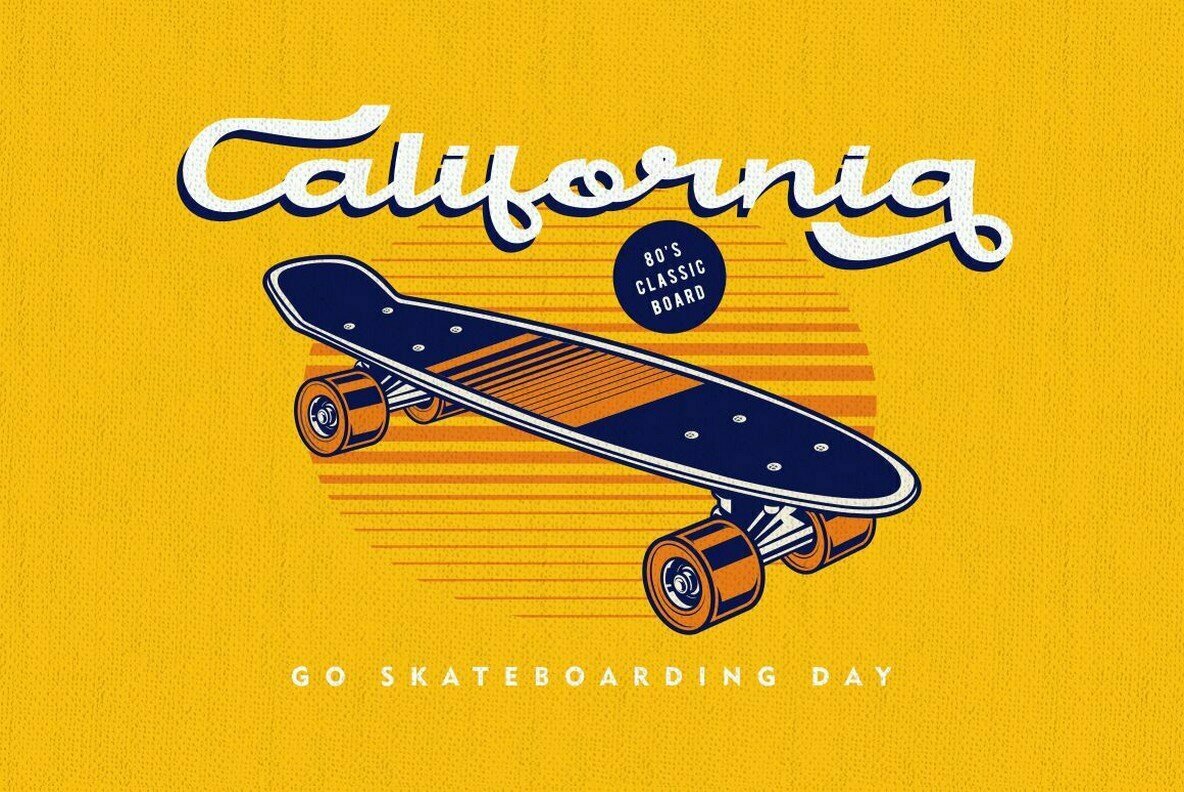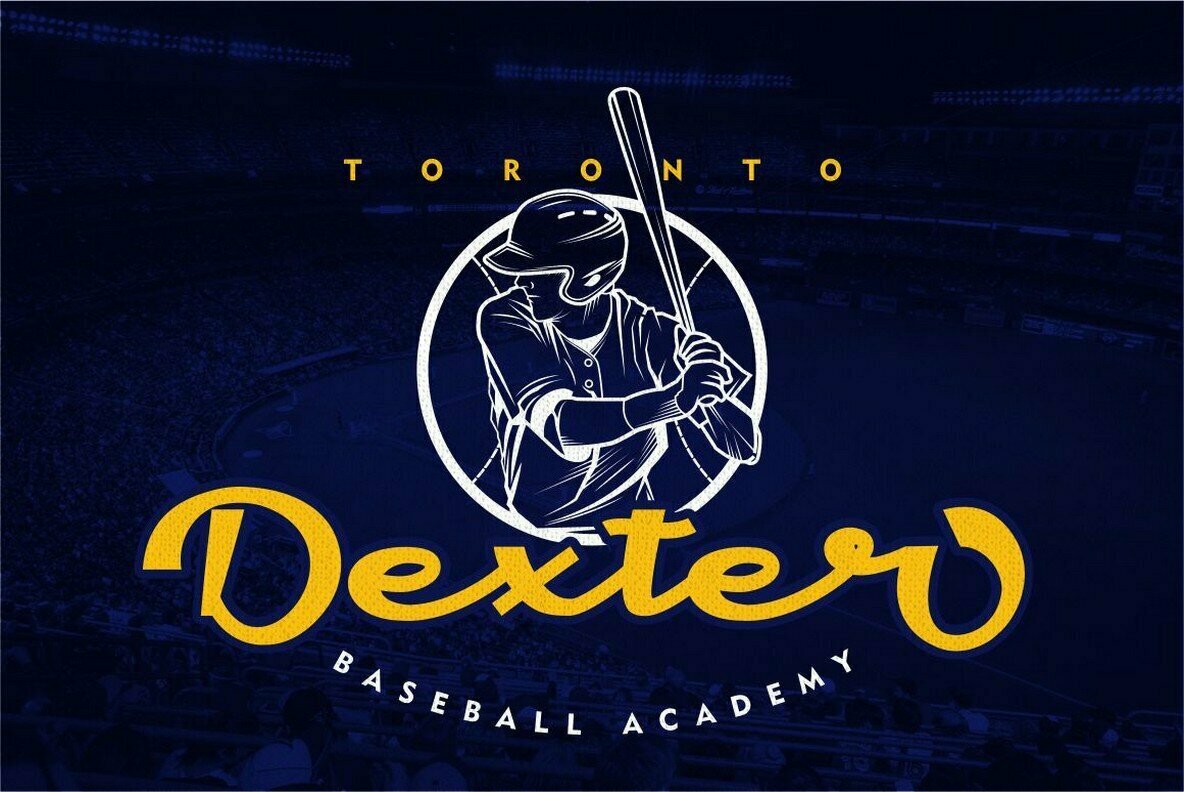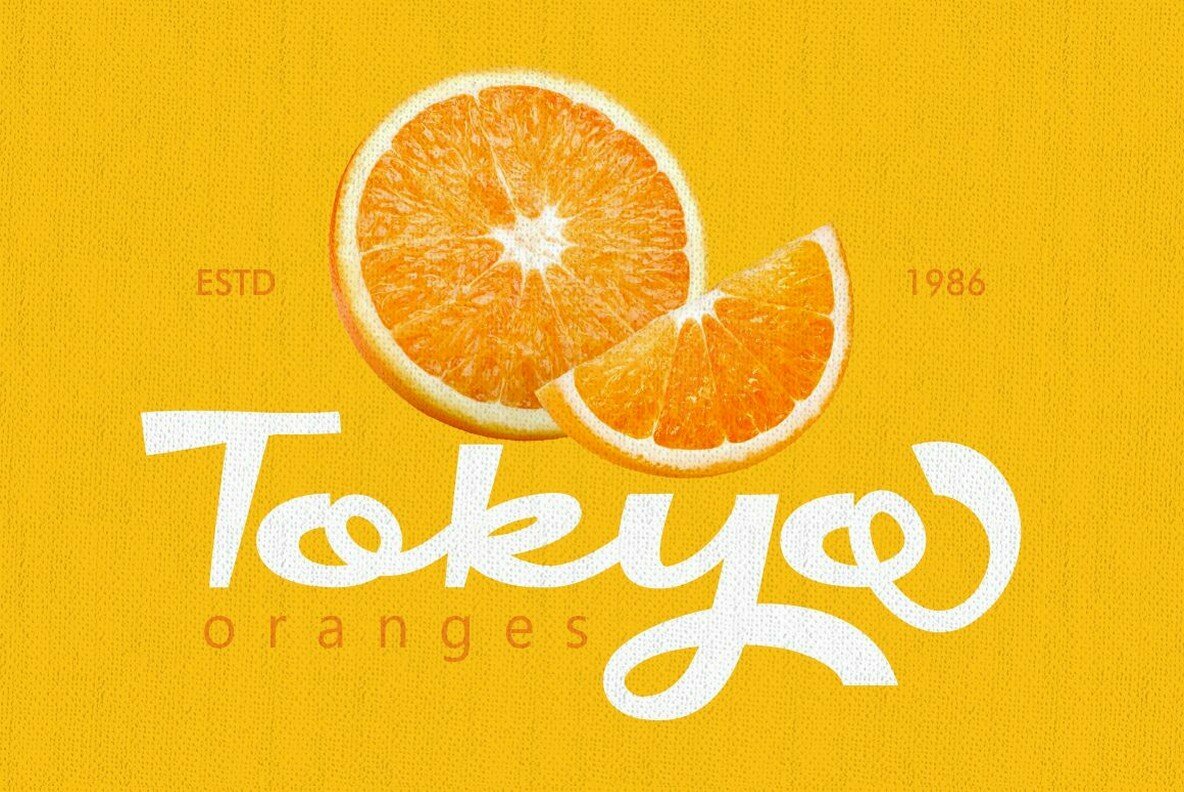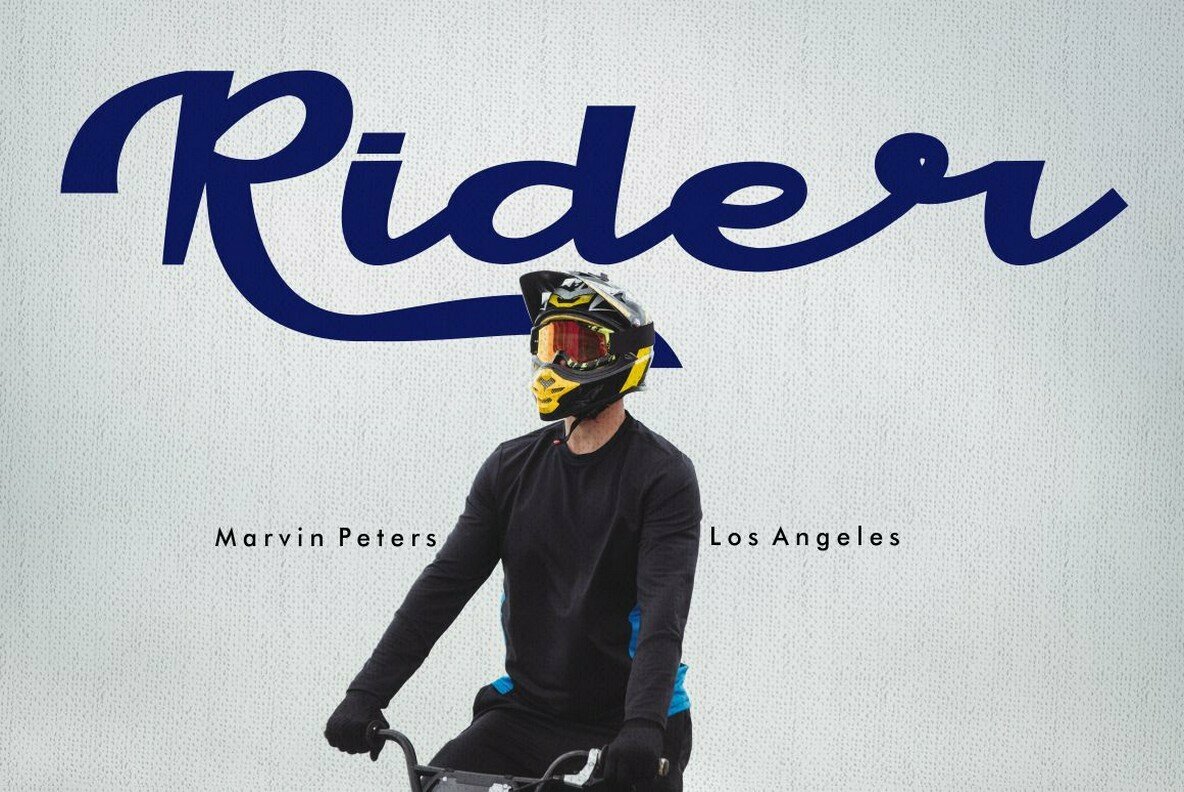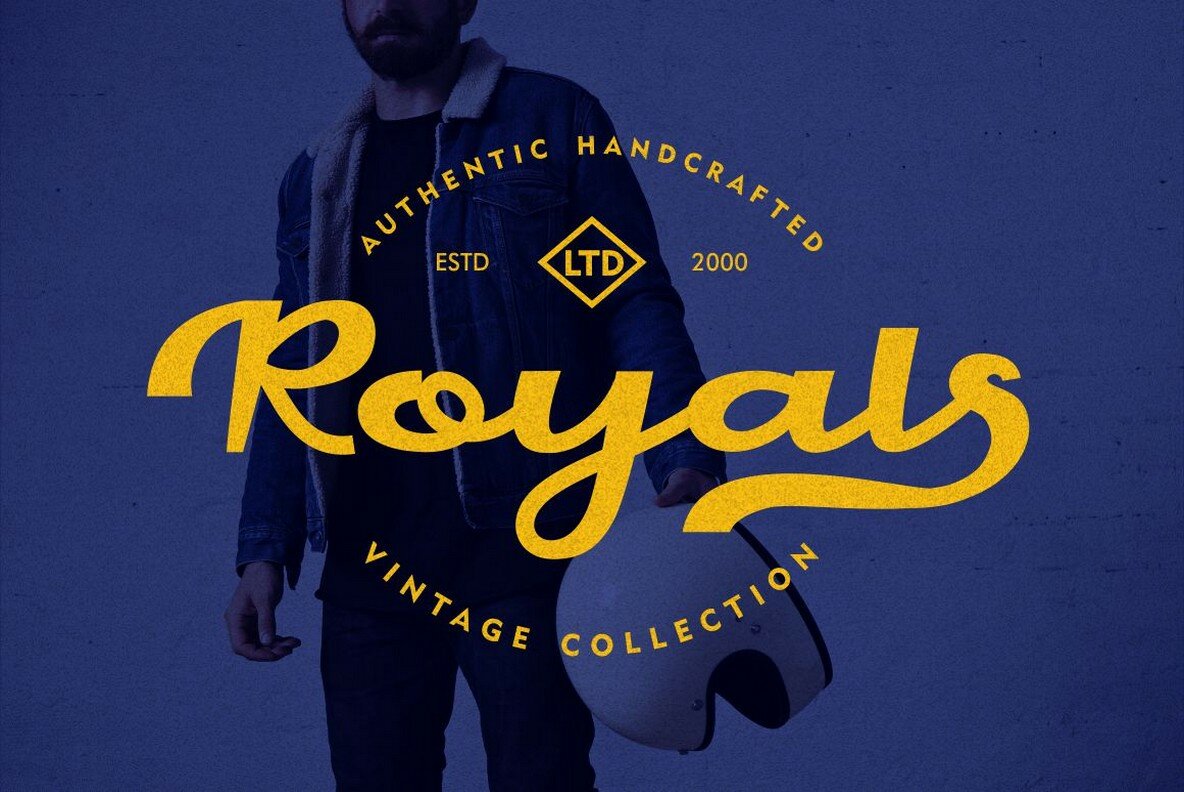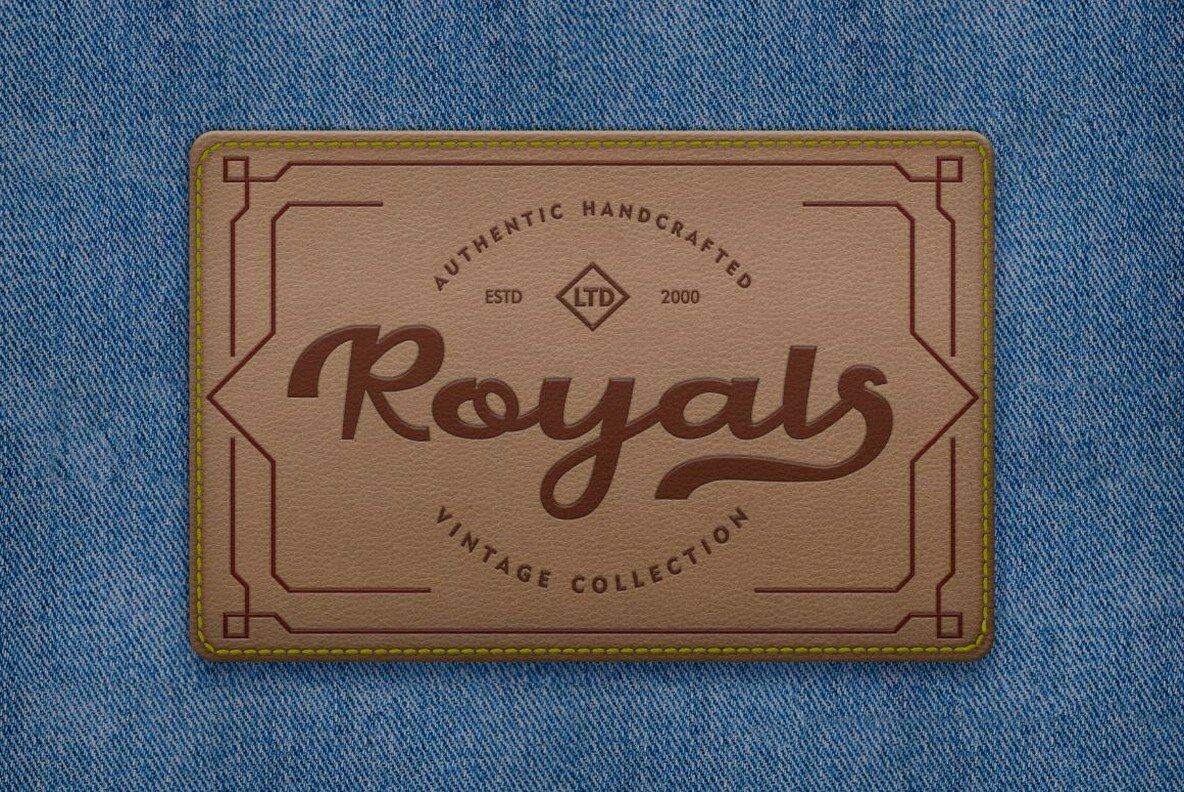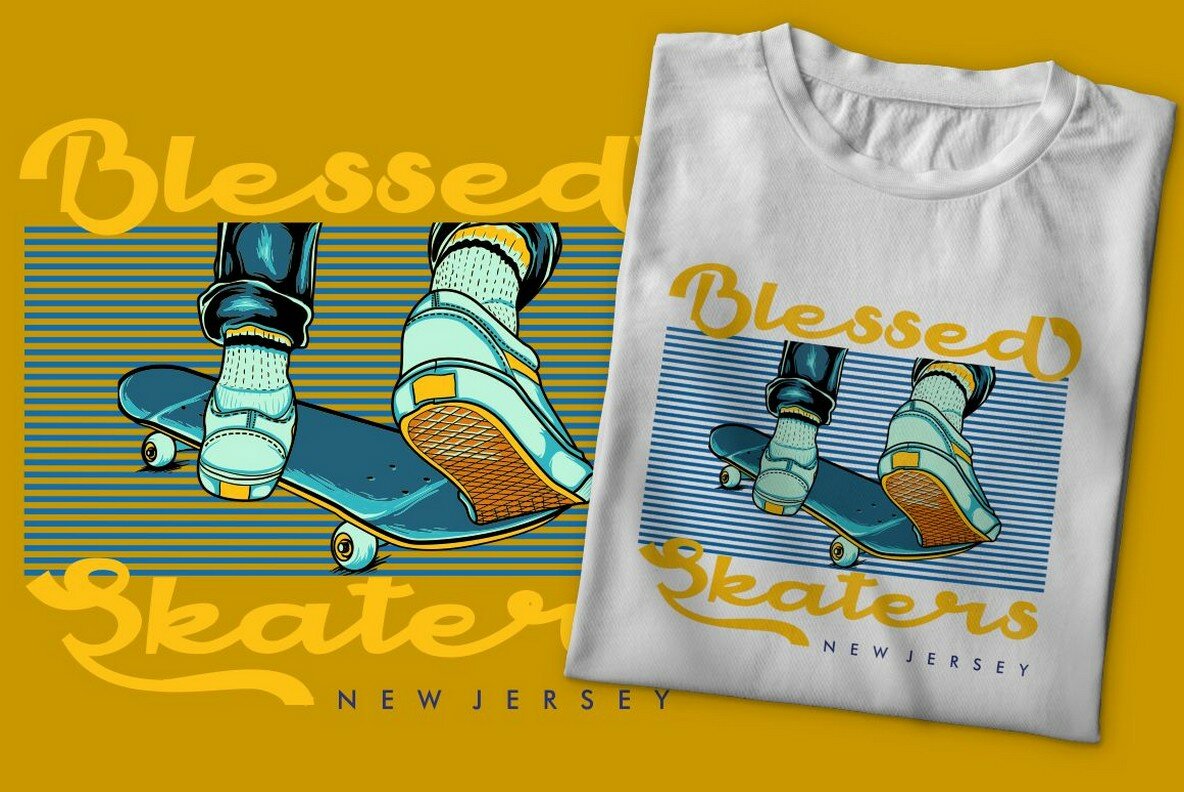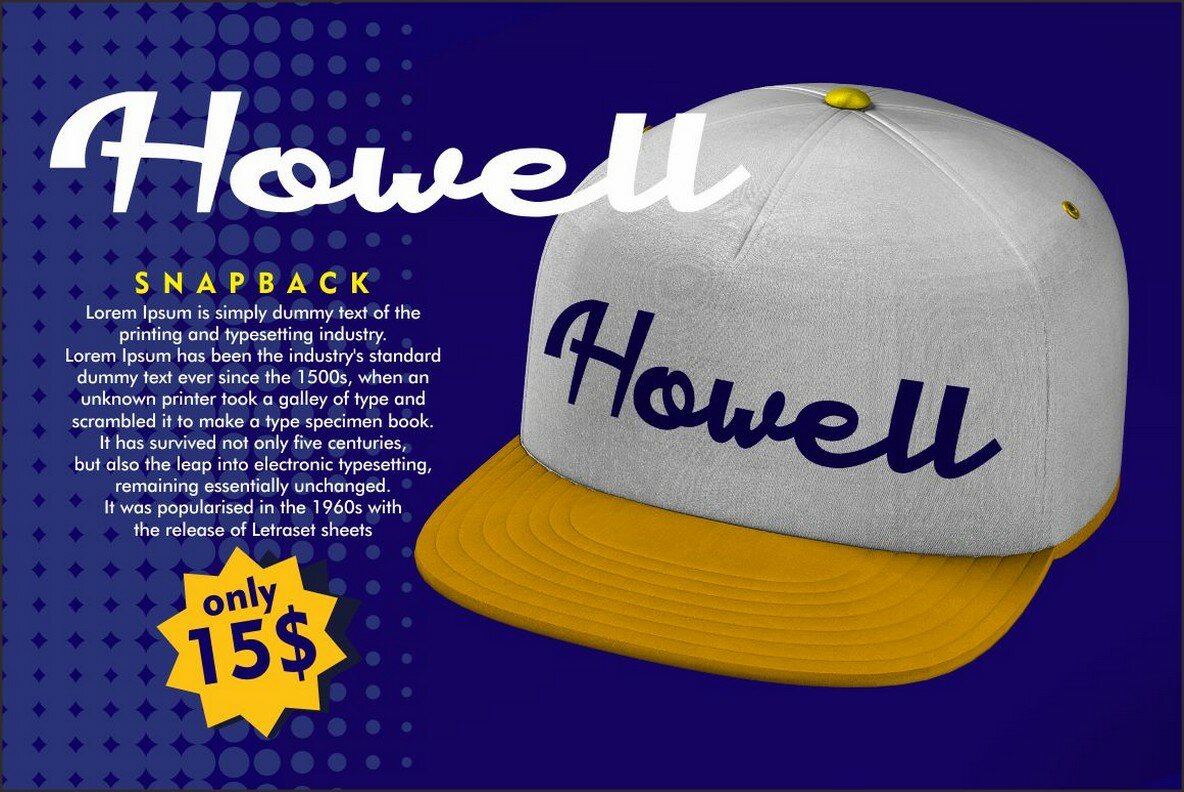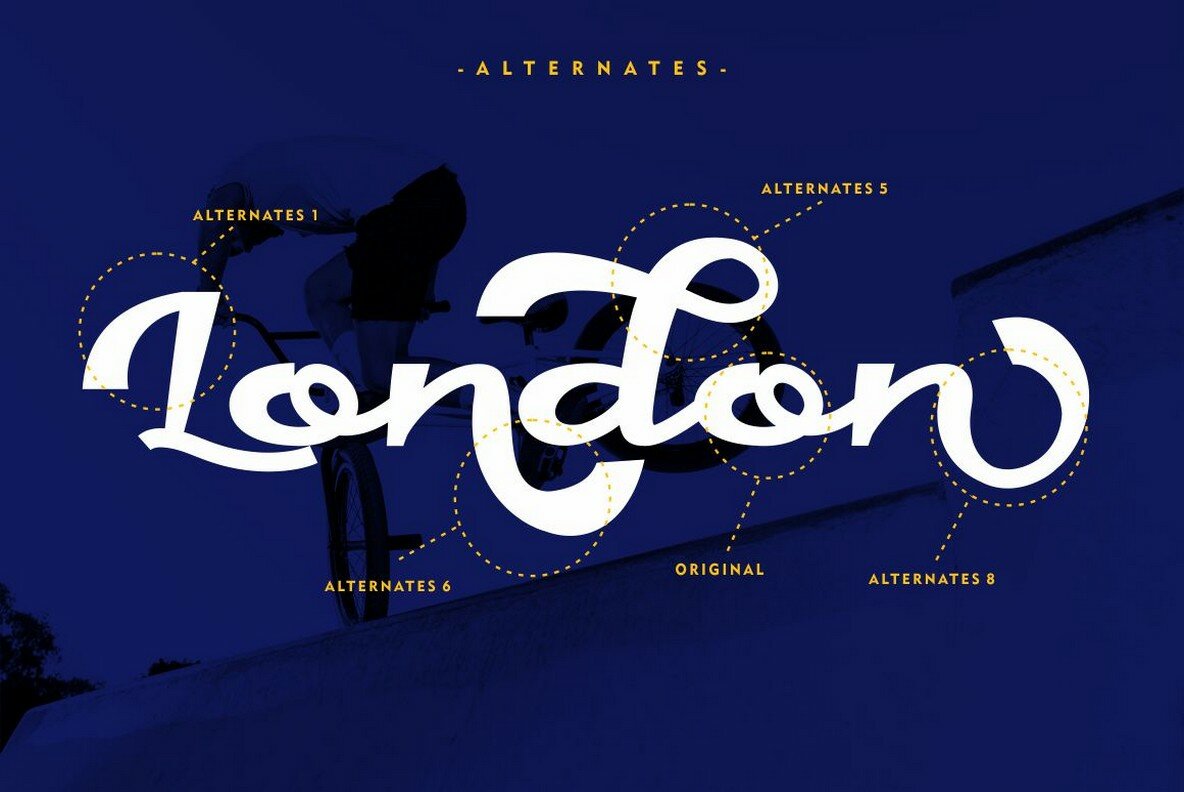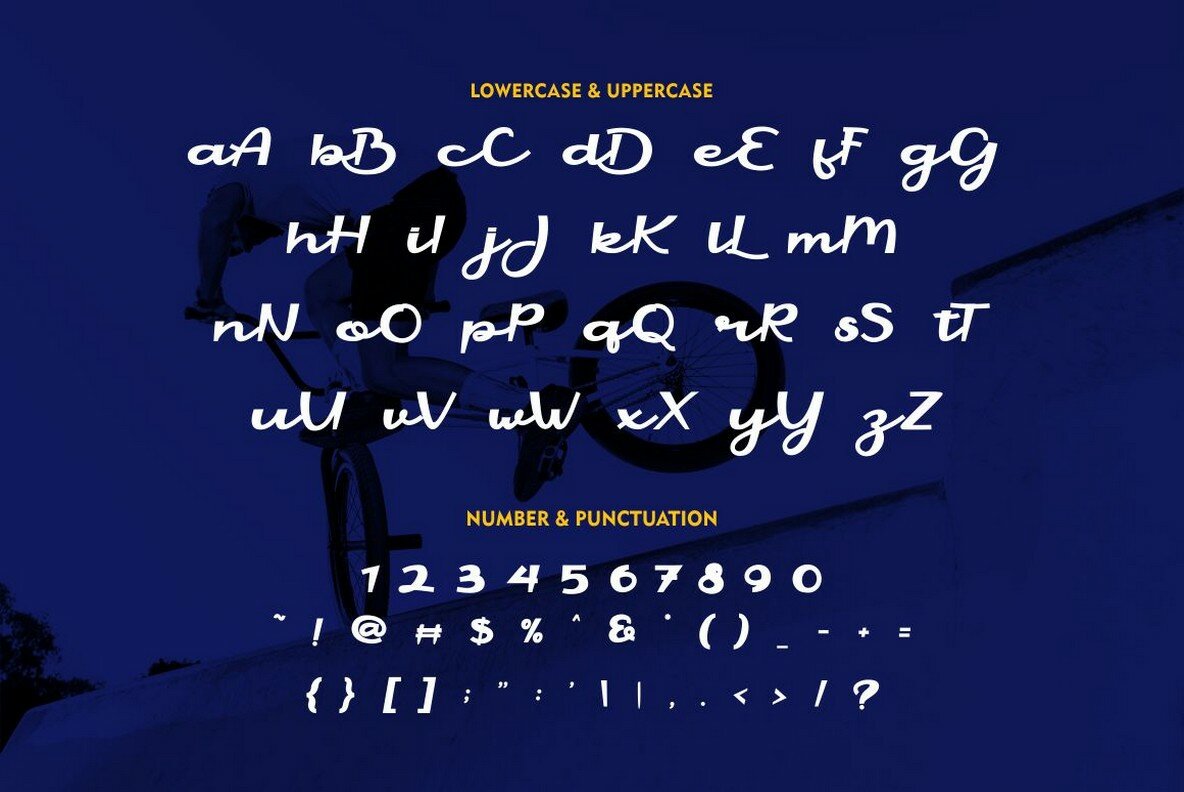
Handaru Font
Handaru is a distinctive bold script font designed with a uniquely shallow or flattened form. Despite its unusual structure, Handaru maintains a clean and contemporary aesthetic, making it a standout choice for a variety of creative projects. Ideal for applications spanning logos, badges, labels, apparel, club events, handwritten quotes, packaging, headers, posters, merchandise, social media, and greeting cards, this font combines versatility with style. Handaru's design is complemented by OpenType features, offering numerous alternates to aid in crafting beautiful lettering. Features:Handaru: Bold Yet Modern Script